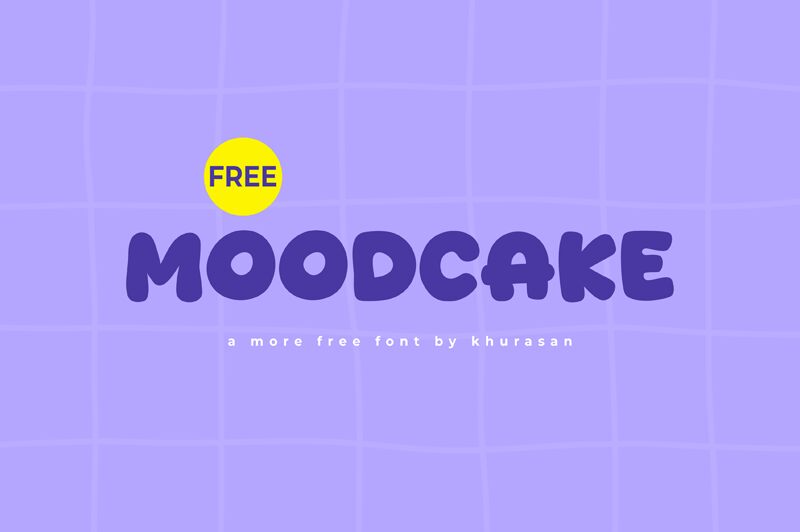
Moodcake
Moodcake font is a modern display font with an informal charm and a subtle retro vibe. Its rounded bubbly letters and cartoon style give off a playful effect which is suitable for various youthful projects. It was created by Khurasan in bold weight rendering it perfect for designs that make text the focal point.